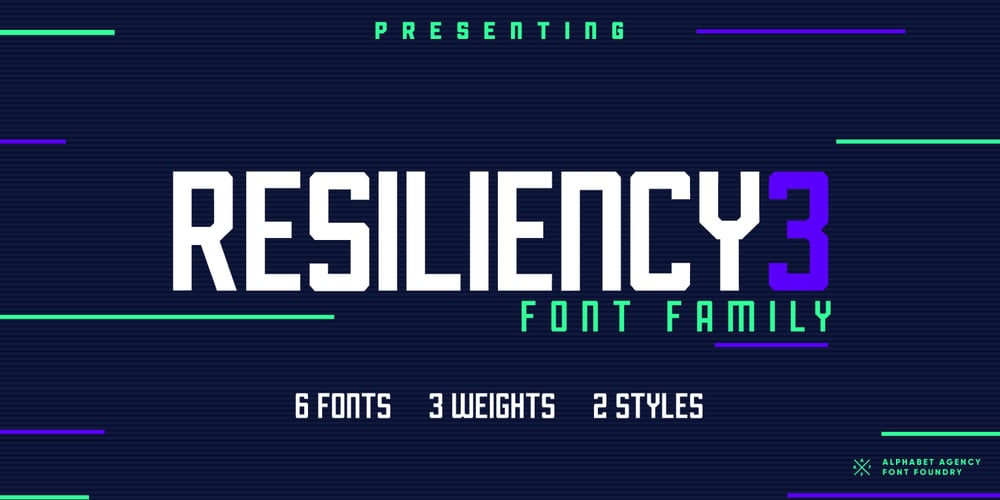
Resiliency3 Font Family was designed by Swinn Jonathan and published by Alphabet Agency. Resiliency3 contains 6 styles and family package options. Resiliency3 font family was designed for use in sports and fitness themes. Gaming is another genres that the font family pairs well with.